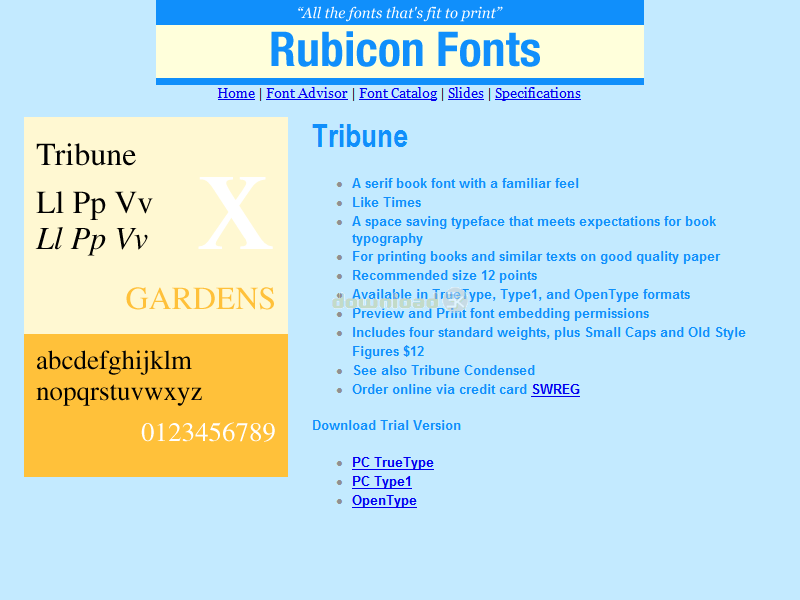
"Serif book font, familiar look"
Serif book font with a familiar feel. Like Times. A space saving typeface that meets expectations for book typography. For printing books and other passages of text on good quality paper. Recommended size 12 points. Accurate and hinted, matching font metrics, standard character set, kerning pairs. Professional print quality for inkjet, laser, typesetter to 3500 dpi. Purchasers receive 5 font variants as follows: Roman, Italic, Bold, Bold Italic, Small Caps and Old Style Figures.Requirements: Older versions of Windows require Adobe Type Manager.